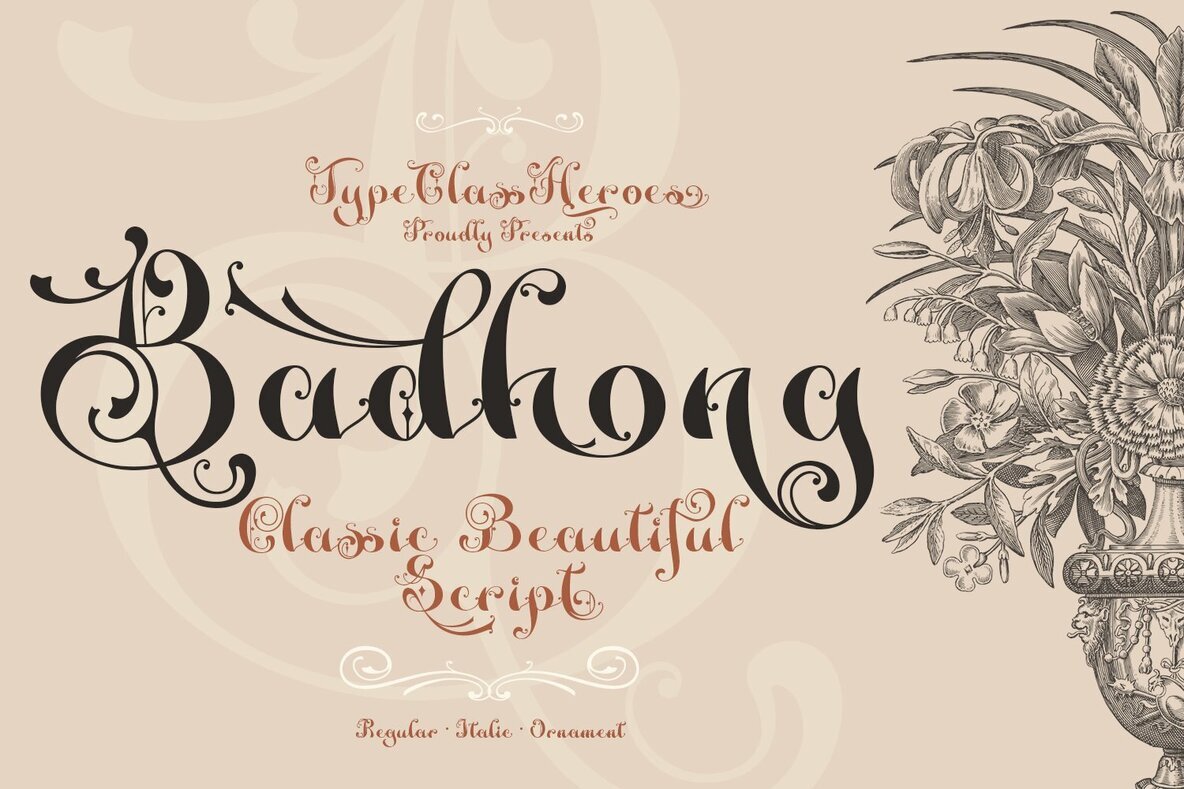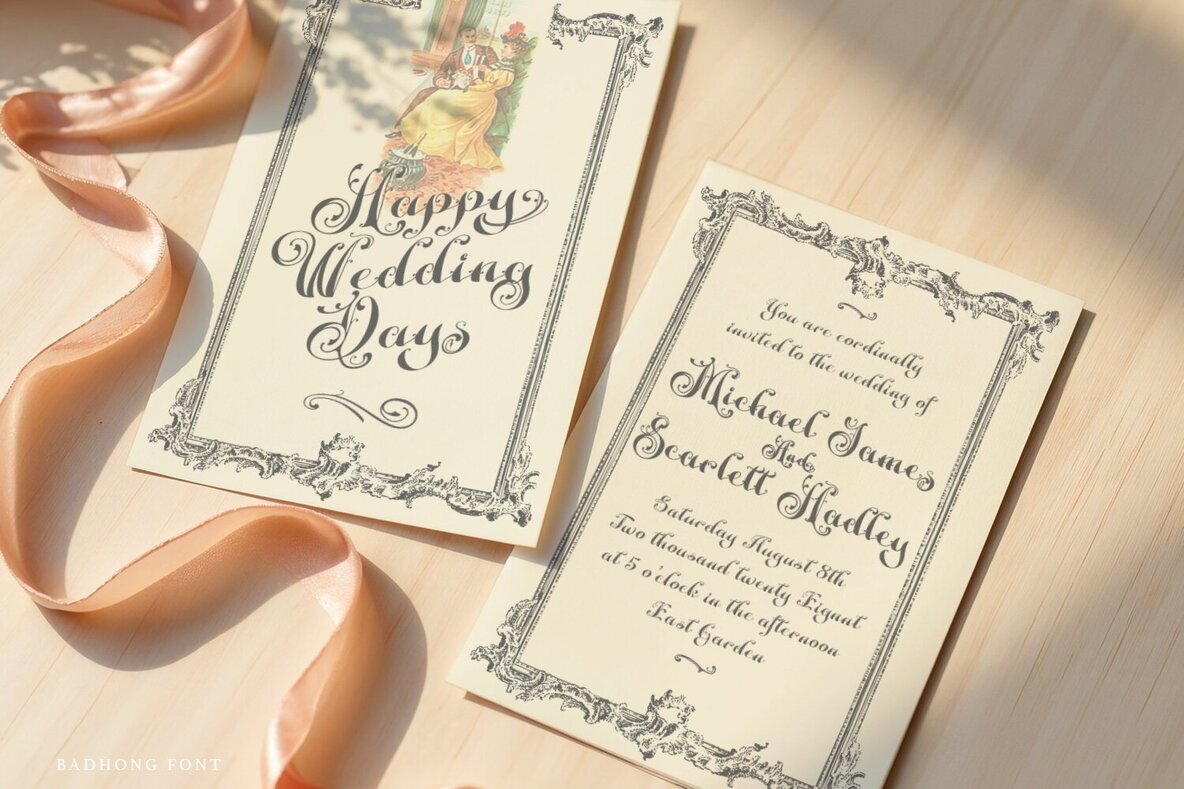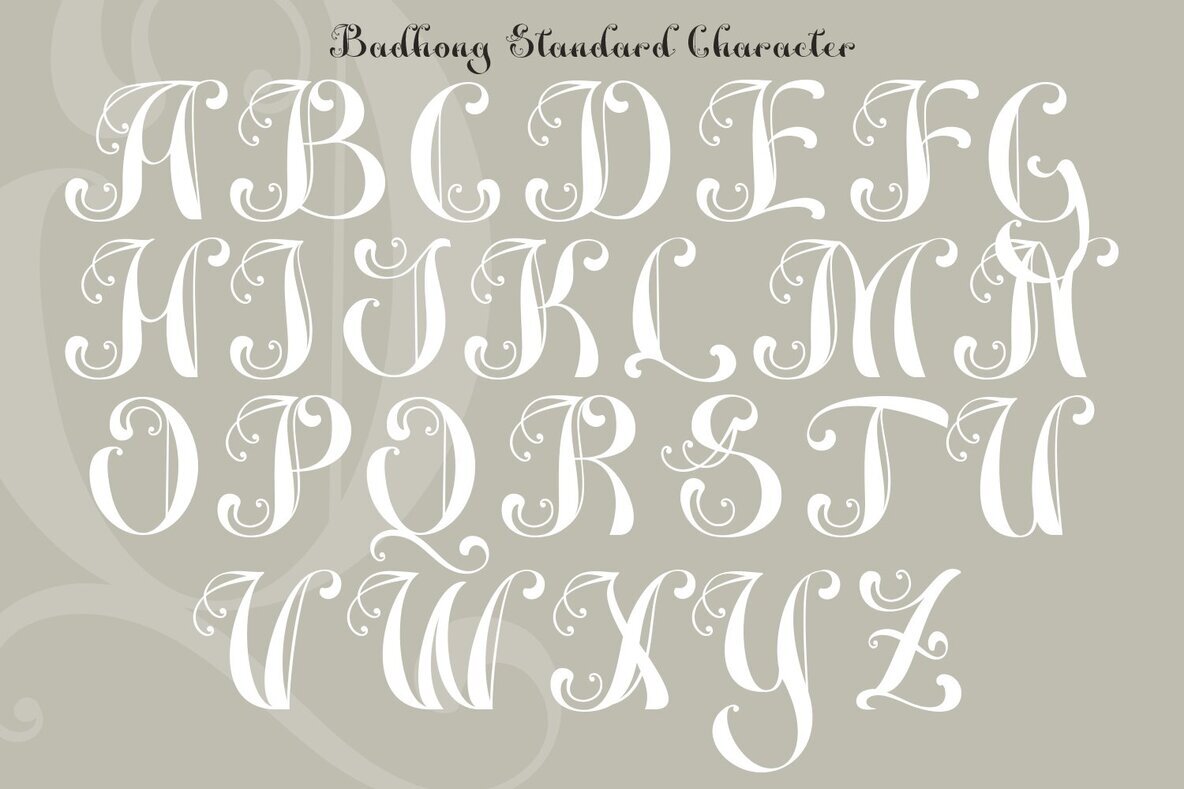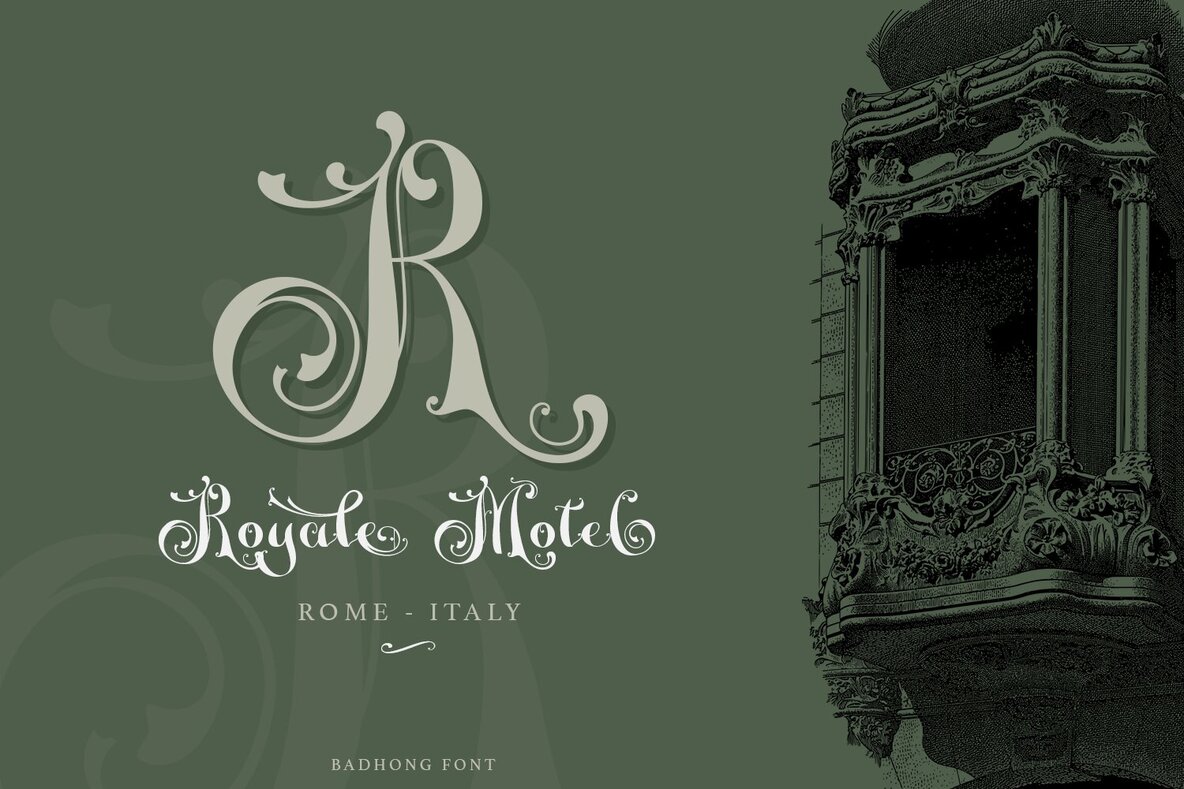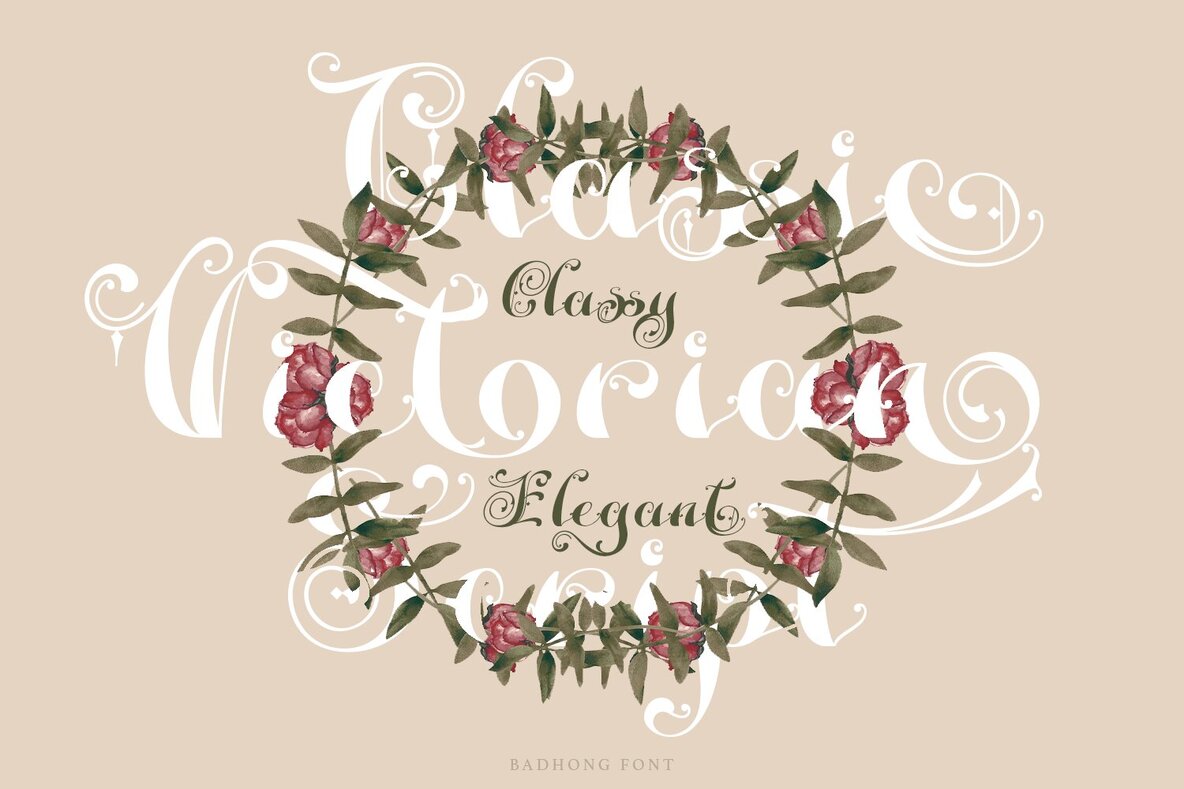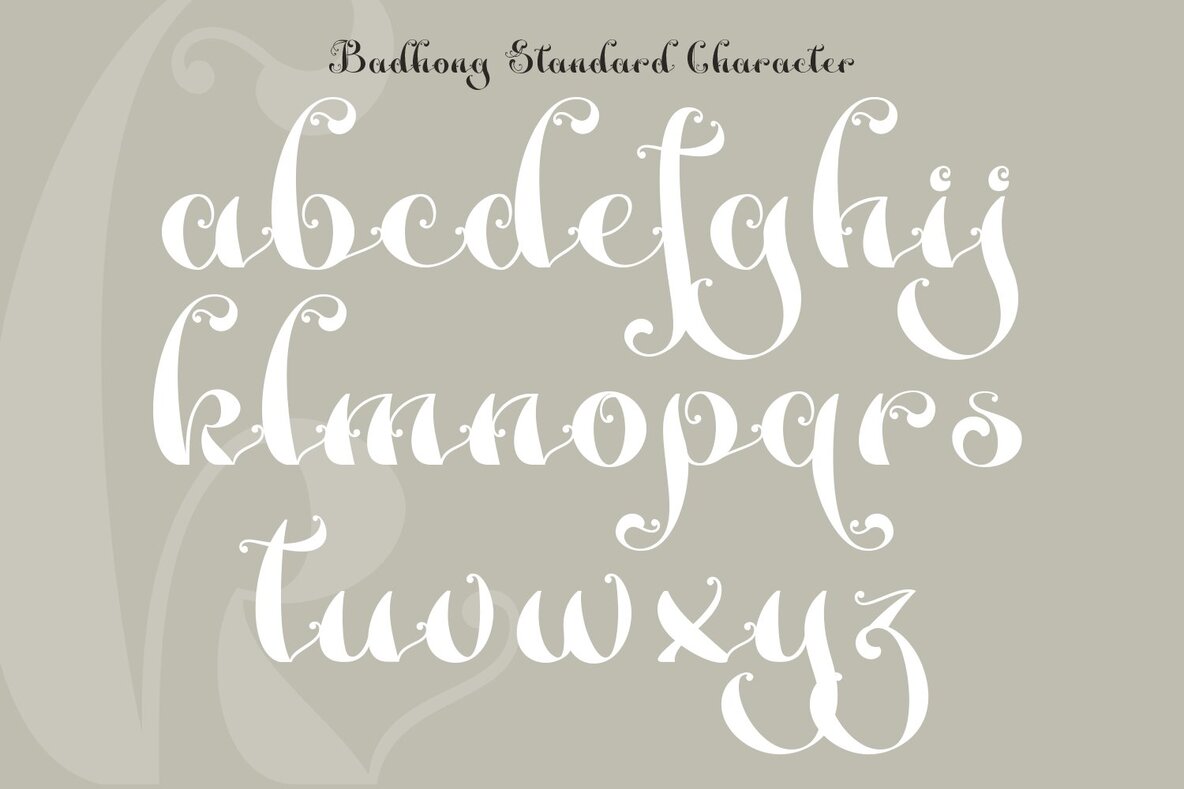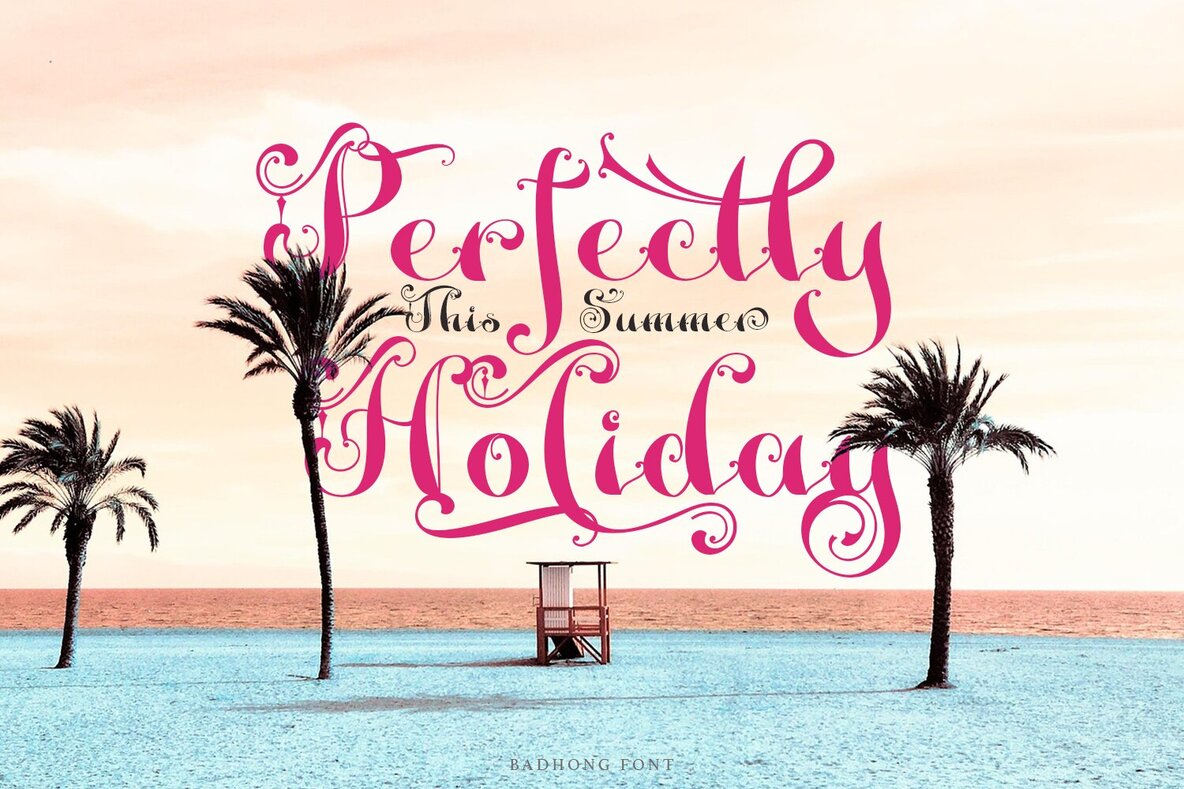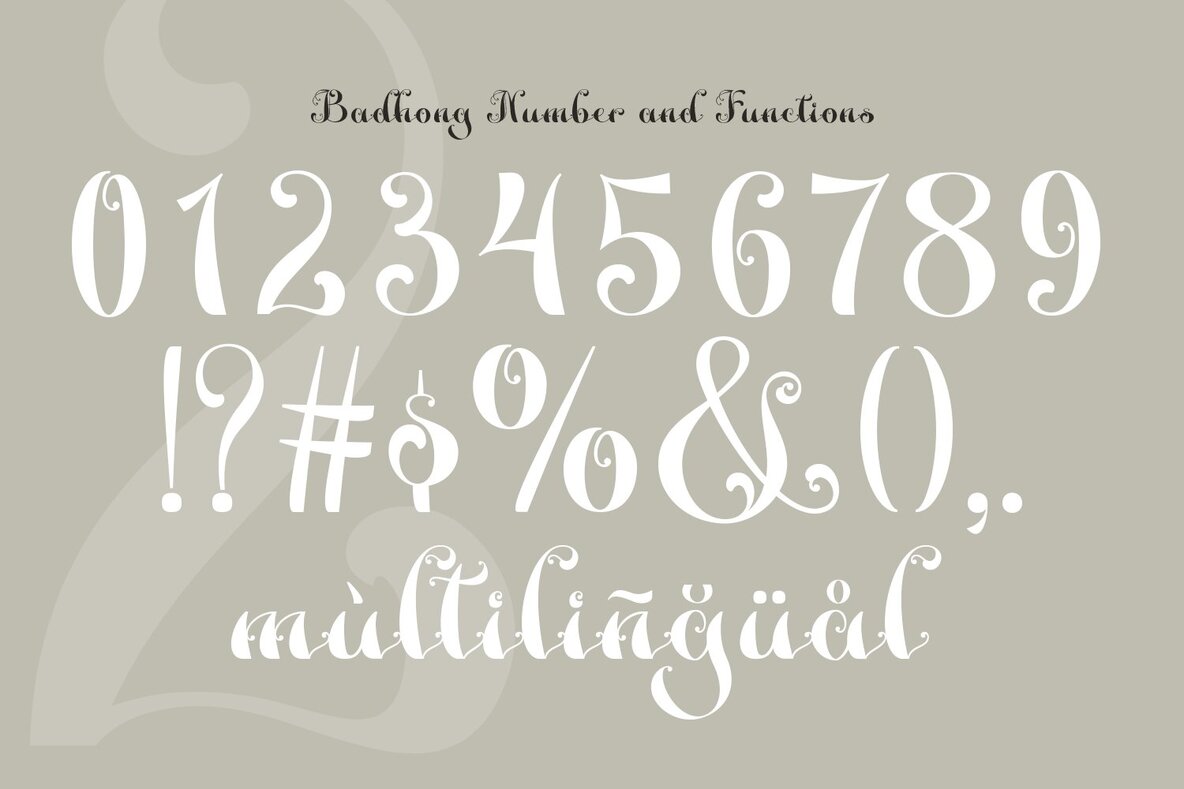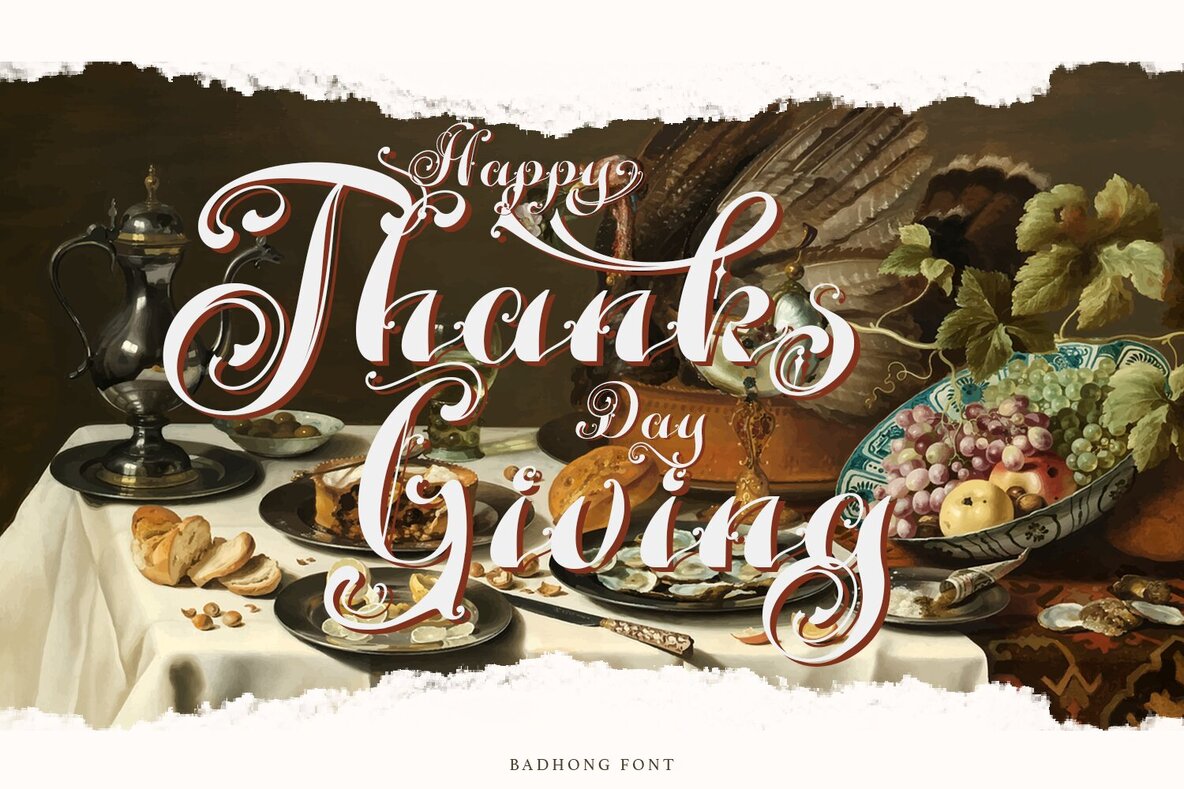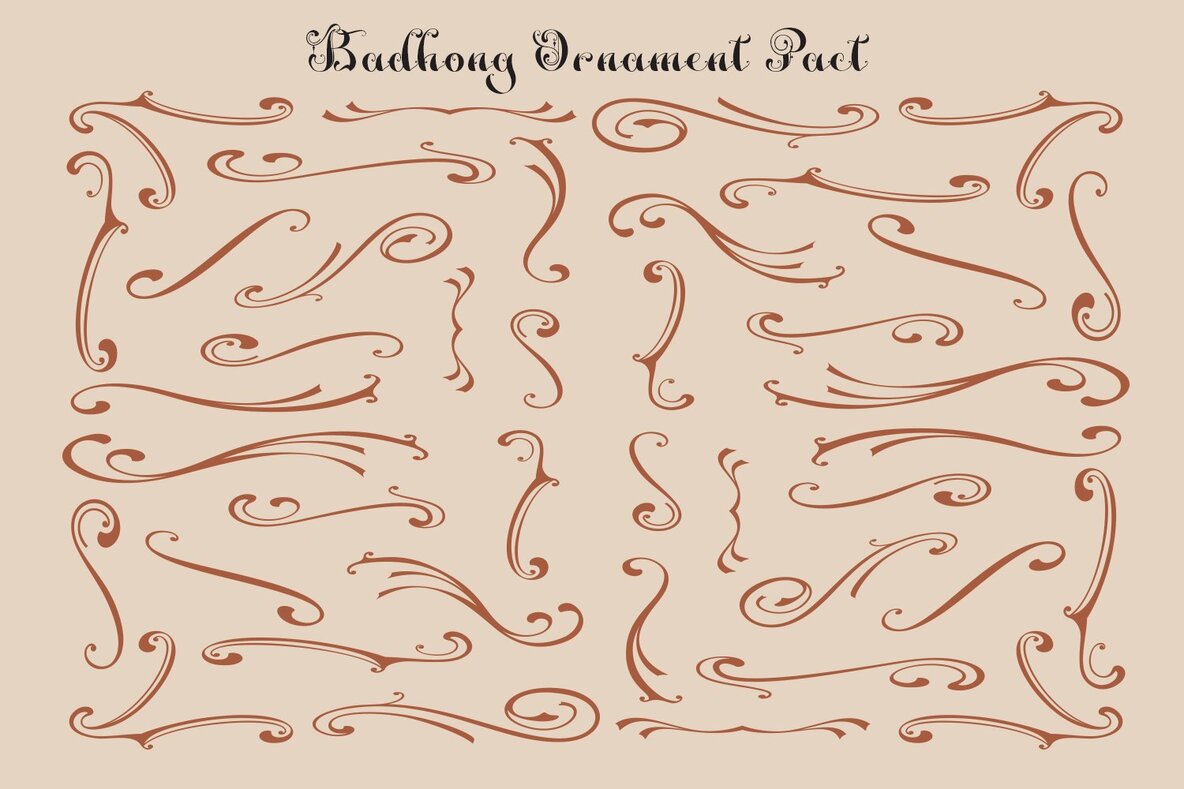
Badhong Font
Step into a world of elegance with Badhong, a sophisticated decorative script designed to transform your creative projects. This font boasts a plethora of stunning alternates and ligatures, adding a touch of feminine glamour to any design. From enchanting invitations to stylish logos and fashion branding, Badhong is your perfect partner for achieving a refined aesthetic.Badhong Decorative Script Typeface
Versatile Elegance